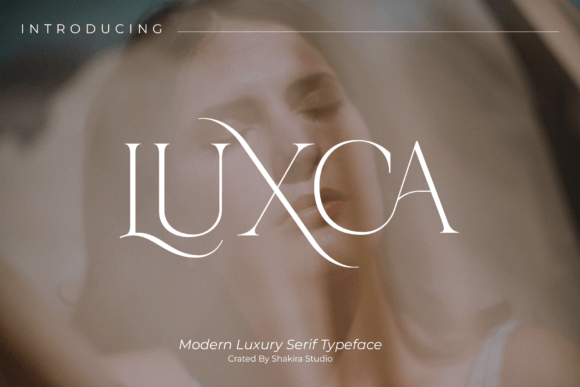
Introducing Luxca, the epitome of modern luxury in the serif font category. Created by the renowned Shakira Studio, this font effortlessly combines contemporary sophistication with timeless elegance. If you're a designer looking to infuse your projects with an air of opulence and refinement, Luxca is the perfect choice.
Luxca's sleek and stylish design captures attention from the moment it graces your screen. Its carefully crafted serifs and graceful curves exude a sense of class and sophistication, setting it apart from ordinary fonts. With Luxca, your headlines will command attention and leave a lasting impression on your audience.
One of the key strengths of Luxca is its versatility. Whether you're working on a branding project, editorial design, or creating stunning graphics for social media, this font adapts effortlessly to any context. Its versatility allows it to seamlessly blend with other design elements, making it a powerful tool in the hands of a creative professional.
But Luxca is not just about aesthetics. It's also optimized for performance, ensuring that your website or e-commerce platform remains fast and responsive. With its clean code and efficient rendering, Luxca guarantees a smooth user experience, keeping your visitors engaged and eager to explore more.
When it comes to marketing your products or services, Luxca gives you a competitive edge. Its captivating presence and refined appeal make it the perfect choice for luxury brands, high-end fashion, and premium lifestyle products. With Luxca as your typography ally, you'll effortlessly communicate the essence of sophistication and elegance to your target audience.
Luxca is more than just a font – it's a statement. It's the secret ingredient that adds a touch of exclusivity and prestige to any design project. Experience the power and allure of Luxca today, and elevate your creations to new heights.